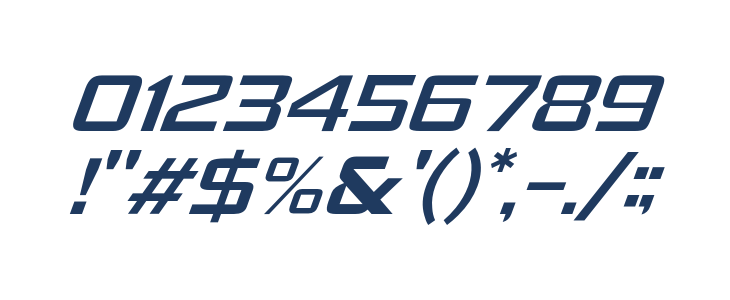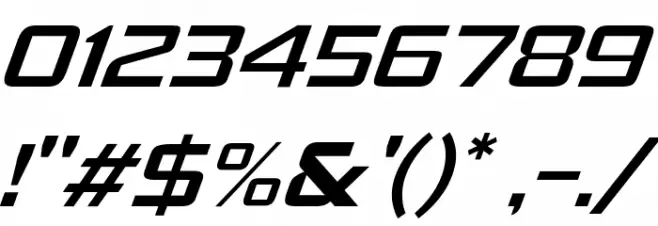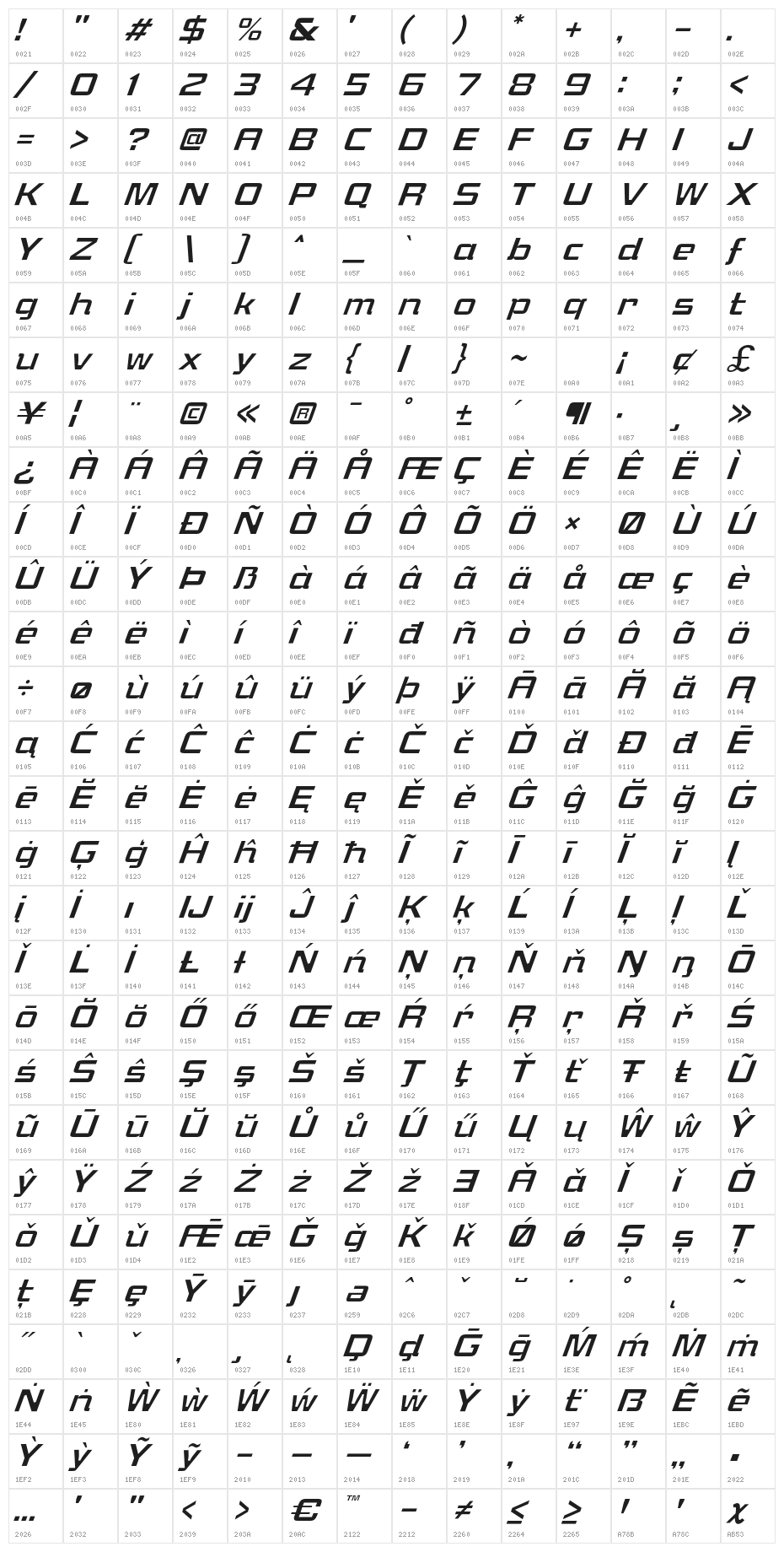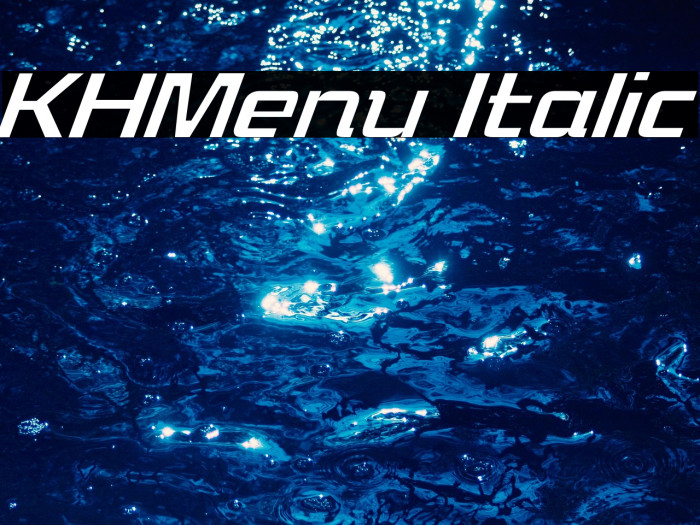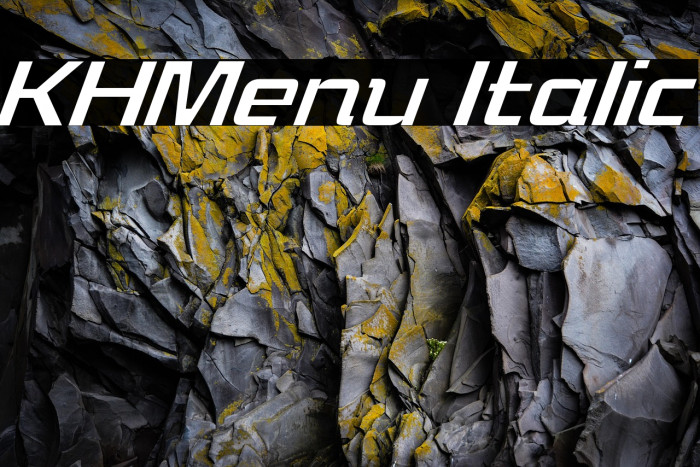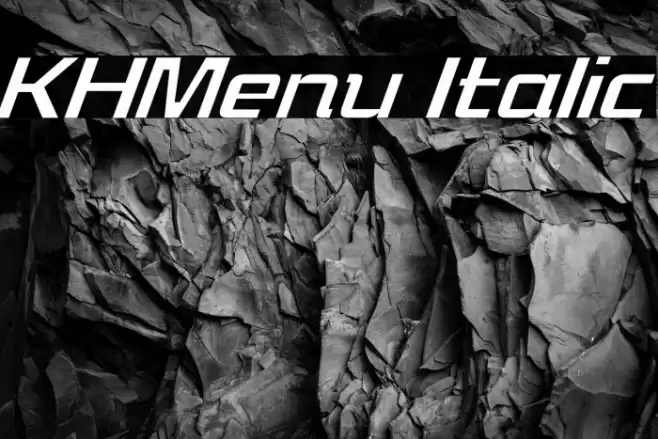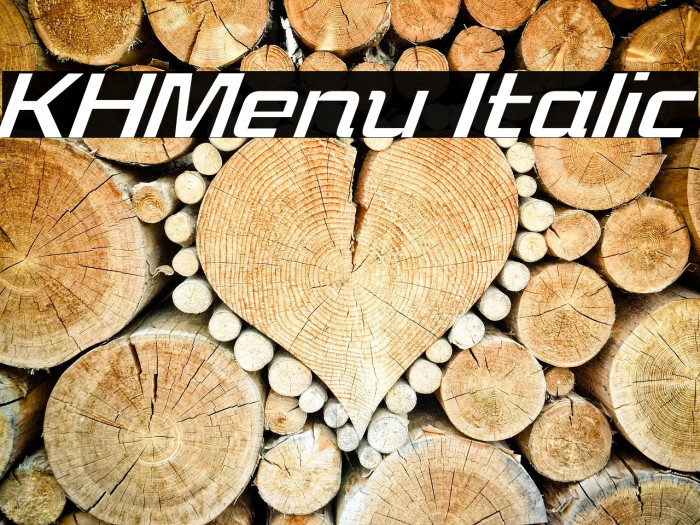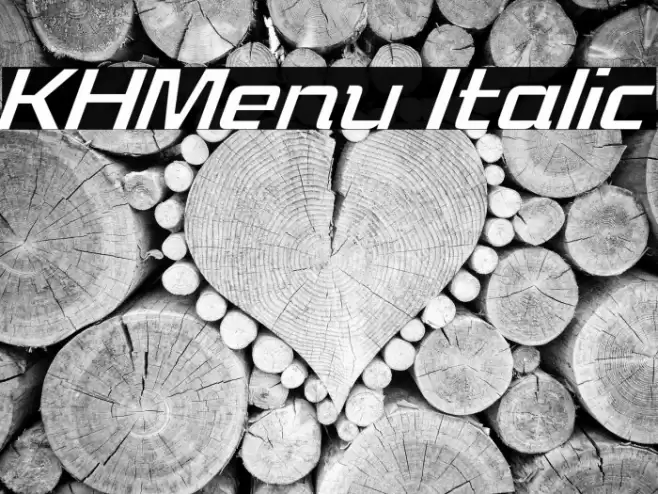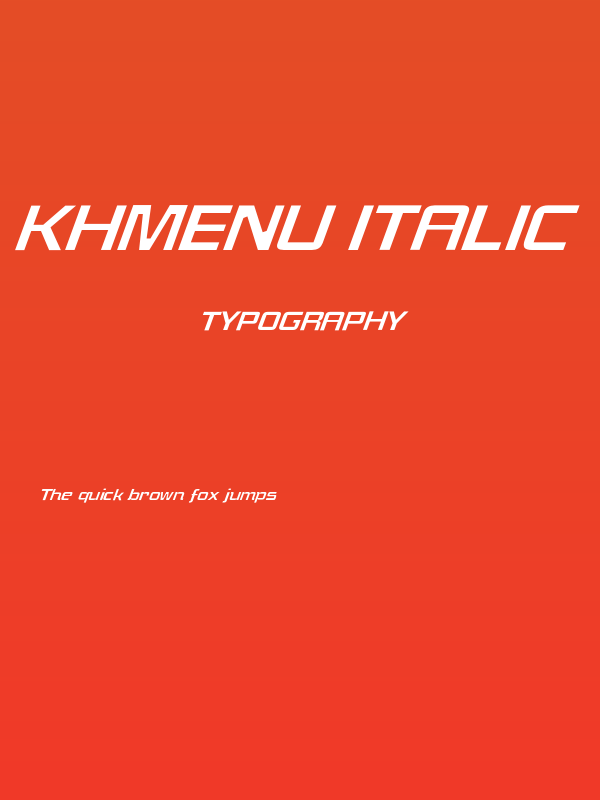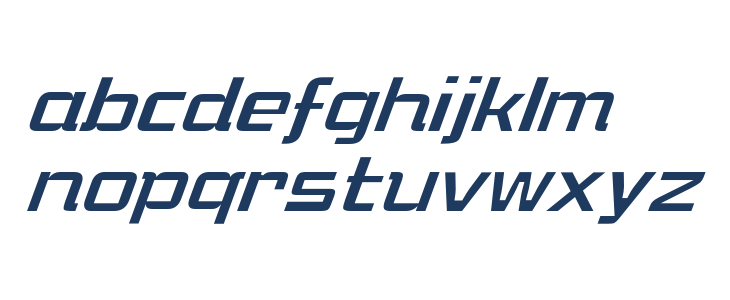
KHMenu Italic Font
KHMenu Italic Description
This font exhibits a sleek, modern style with a distinct italic slant, giving it a dynamic and forward-moving appearance. The characters are well-defined with a geometric structure, featuring sharp angles and clean lines. The uppercase and lowercase letters maintain a consistent design, while the numerals and special characters complement the overall aesthetic. The font's design is both functional and stylish, making it suitable for a variety of applications where a contemporary and energetic look is desired.